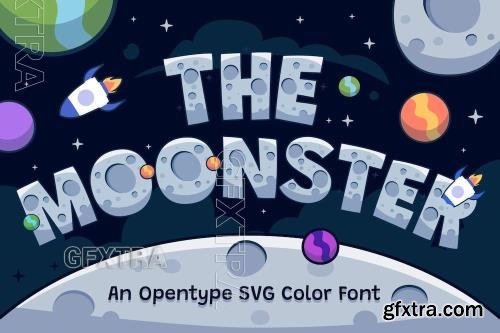
The Moonster font
The Moonster is a bold, space-inspired typeface that captures the mystery of the cosmos. With lunar curves and cratered details, its letters feel like they’ve been carved from moon rock. Perfect for sci-fi posters, futuristic designs, or anything needing an out-of-this-world touch, The Moonster brings the vastness of space to life with a celestial, otherworldly charm